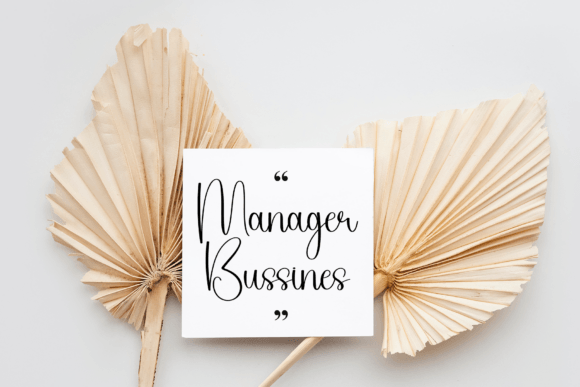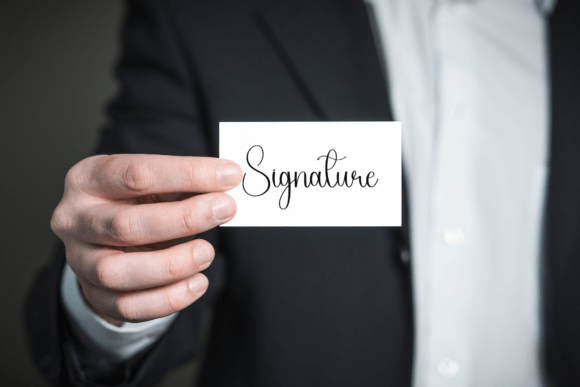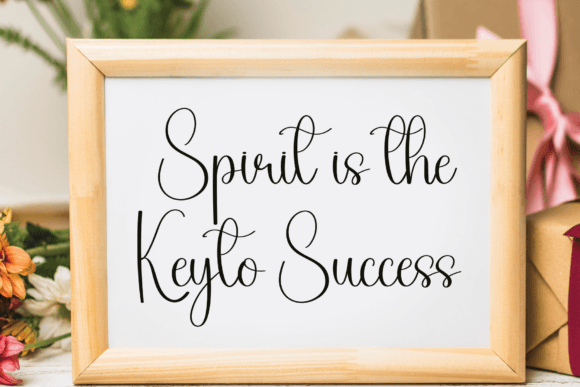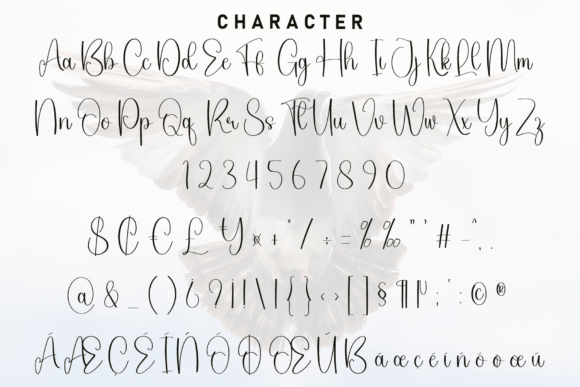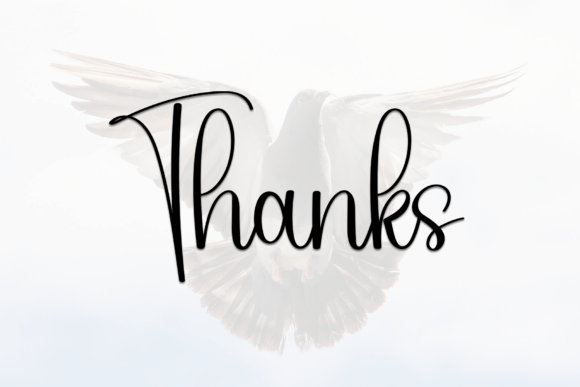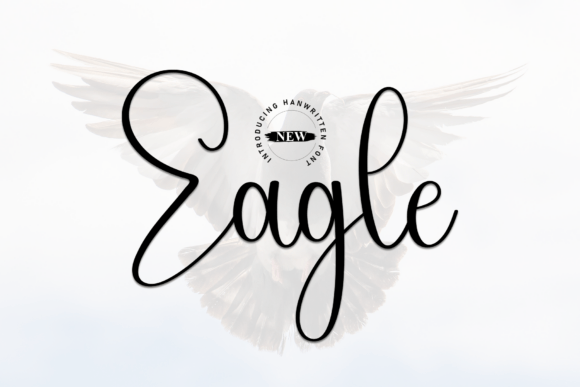
Eagle Font: Elevate Your Designs with a Relaxed yet Luxurious Touch
In the world of typography, fonts play a crucial role in conveying the tone and personality of a brand or design. For designers and crafters looking for a unique and stylish font that exudes a sense of relaxation and sophistication, Eagle Font is an excellent choice. This handwritten font, reminiscent of marker-drawn letters, offers a sporty and casual feel that’s perfect for a wide range of applications.
What is Eagle Font?
Eagle Font is a carefully crafted handwritten font that mimics the look of letters drawn with a marker. Its relaxed and sporty vibe makes it an ideal choice for designers seeking to add a touch of elegance and casualness to their work. Whether you’re creating branding materials, logos, wedding supplies, greeting cards, or marketing promotions, Eagle Font is sure to make your designs stand out.
Key Features of Eagle Font
- Handwritten style: Eagle Font boasts a beautiful, handwritten style that’s perfect for adding a personal touch to your designs.
- Marker-like feel: The font’s marker-like texture gives it a unique and distinctive look that’s sure to capture attention.
- Relaxed and sporty: Eagle Font’s casual and sporty vibe makes it perfect for designs that require a laid-back yet stylish feel.
- Luxurious and elegant: Despite its casual nature, Eagle Font still conveys a sense of luxury and elegance, making it suitable for high-end branding and marketing materials.
Use Cases for Eagle Font
Eagle Font’s versatility makes it suitable for a wide range of applications, including:
- Branding and logos: Create a lasting impression with Eagle Font’s unique and stylish letters.
- Wedding supplies: Add a touch of elegance and whimsy to your wedding designs, such as invitations, programs, and decorations.
- Greeting cards: Make your greeting cards stand out with Eagle Font’s friendly and approachable feel.
- Fashion and lookbooks: Showcase your fashion designs with Eagle Font’s stylish and sophisticated letters.
- Marketing promotions: Elevate your marketing materials with Eagle Font’s luxurious and elegant touch.
Why Choose Eagle Font?
With so many fonts available, why choose Eagle Font? Here are just a few reasons:
- Unique style: Eagle Font’s marker-like texture and handwritten style set it apart from other fonts.
- Versatility: This font is suitable for a wide range of applications, from branding and logos to wedding supplies and greeting cards.
- Ease of use: Eagle Font is easy to read and works well in both digital and print formats.
Tips for Using Eagle Font
To get the most out of Eagle Font, here are a few tips:
- Pair with contrasting fonts: Combine Eagle Font with contrasting fonts to create visual interest and hierarchy.
- Experiment with colors: Try out different colors to find the perfect match for your design.
- Use it sparingly: Eagle Font’s unique style makes it perfect for headlines and titles, but use it sparingly to avoid overwhelming your design.
In conclusion, Eagle Font is a versatile and stylish font that’s perfect for designers and crafters looking to add a relaxed yet luxurious touch to their work. With its unique marker-like texture and handwritten style, Eagle Font is sure to elevate your designs and make them stand out. Try it out today and discover the perfect font for your next project!